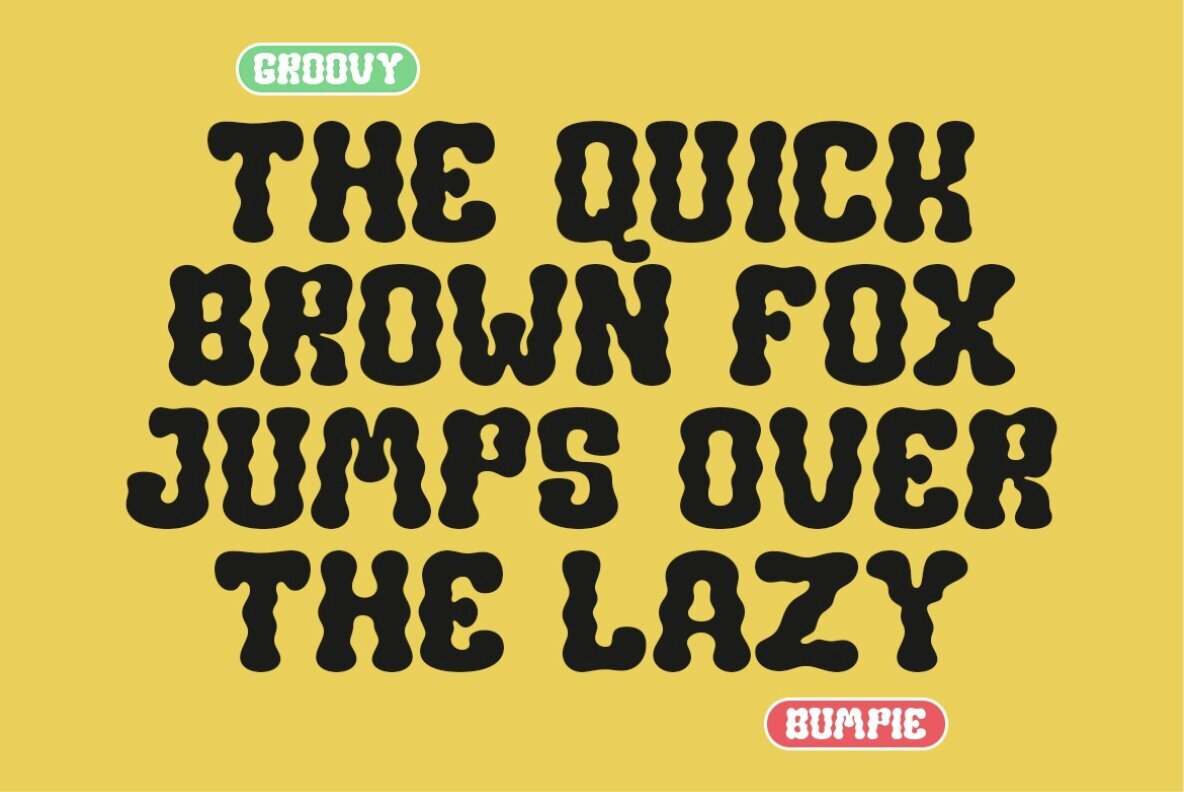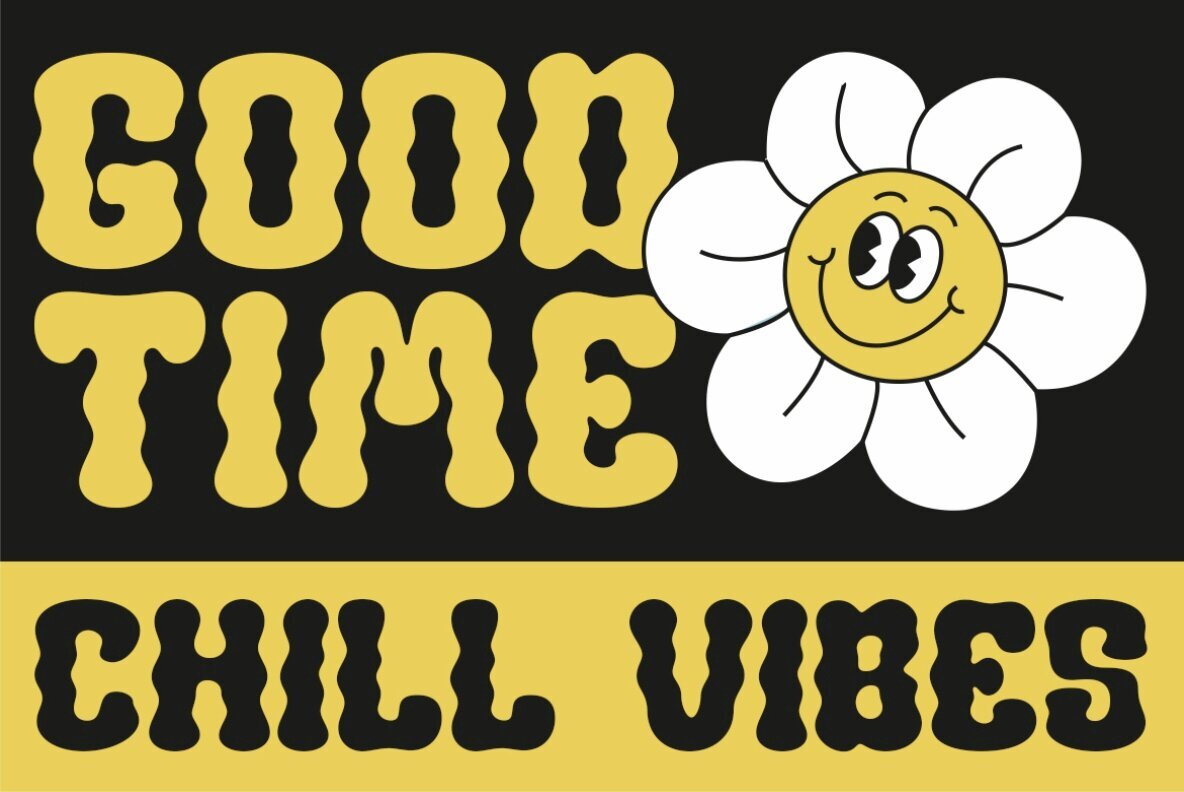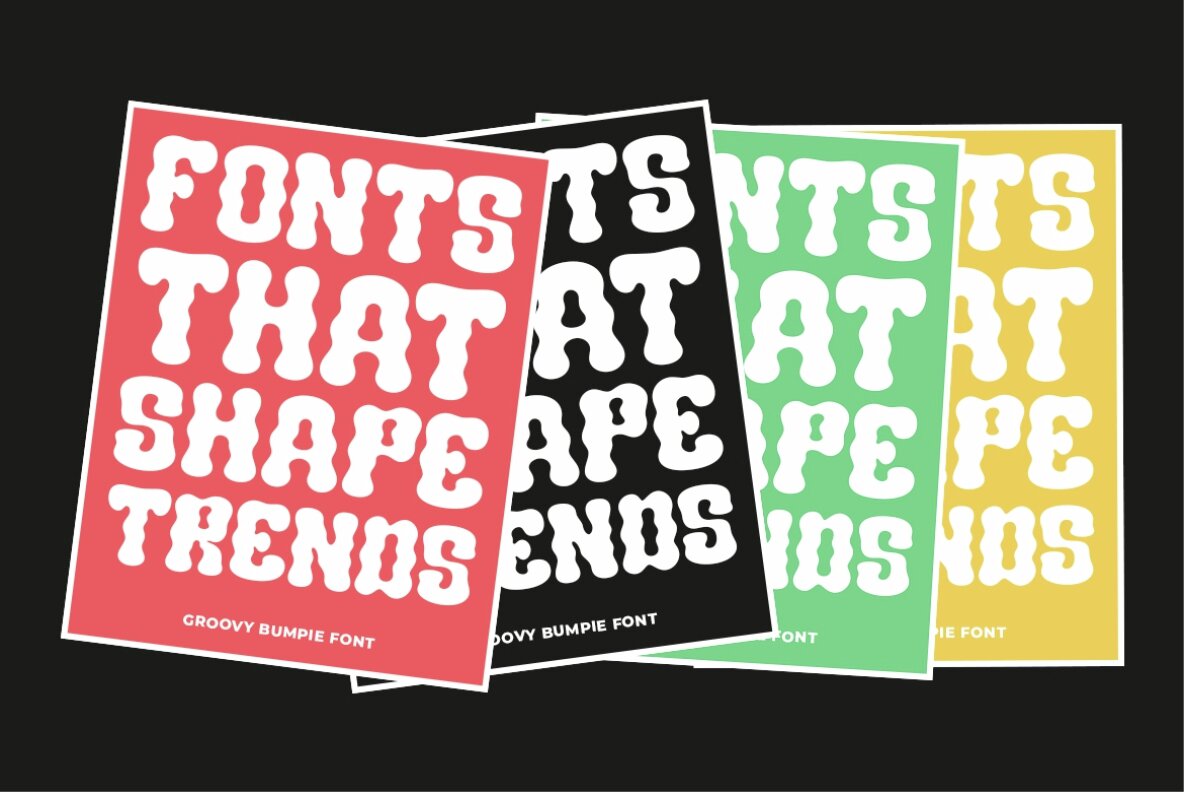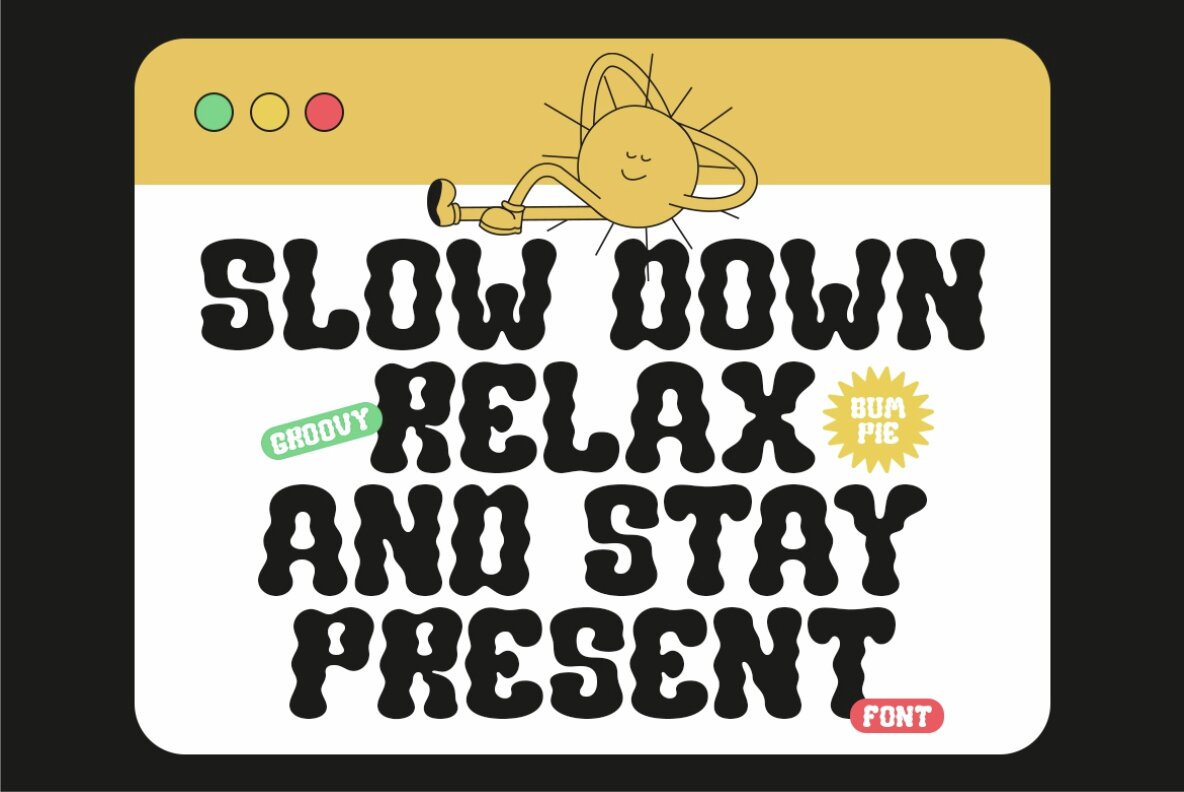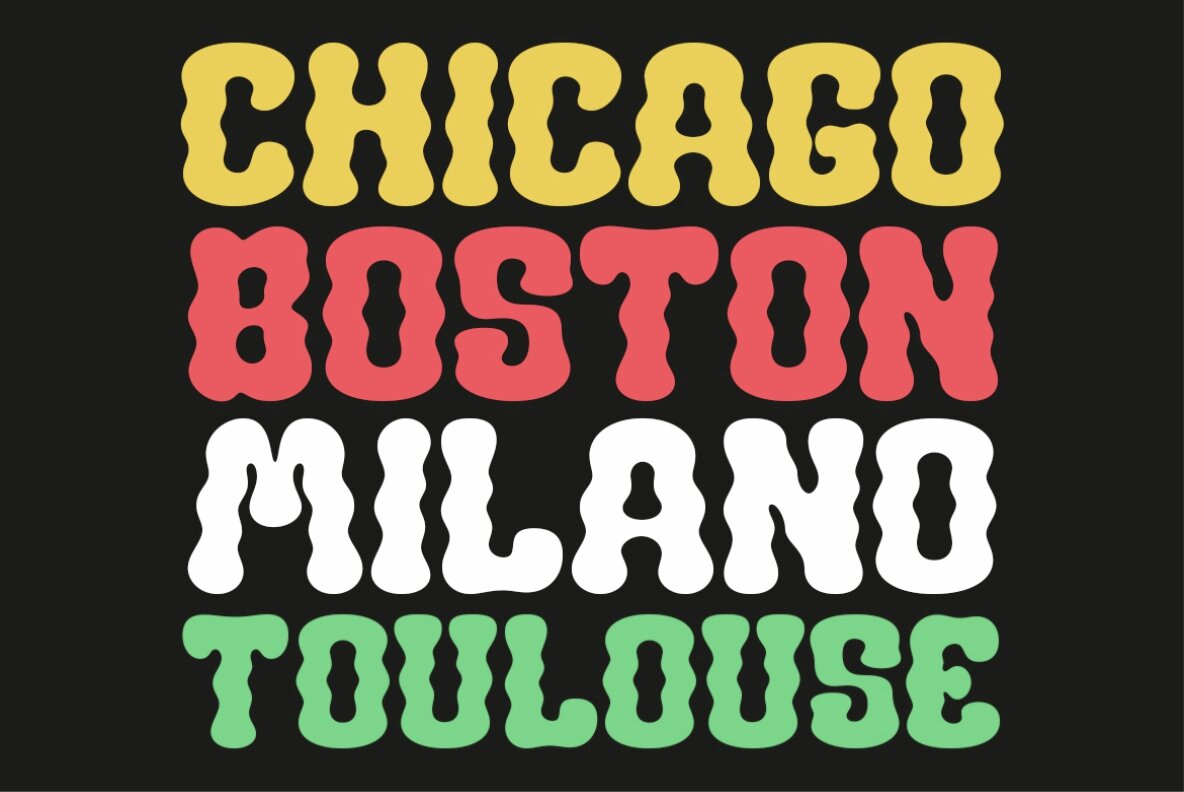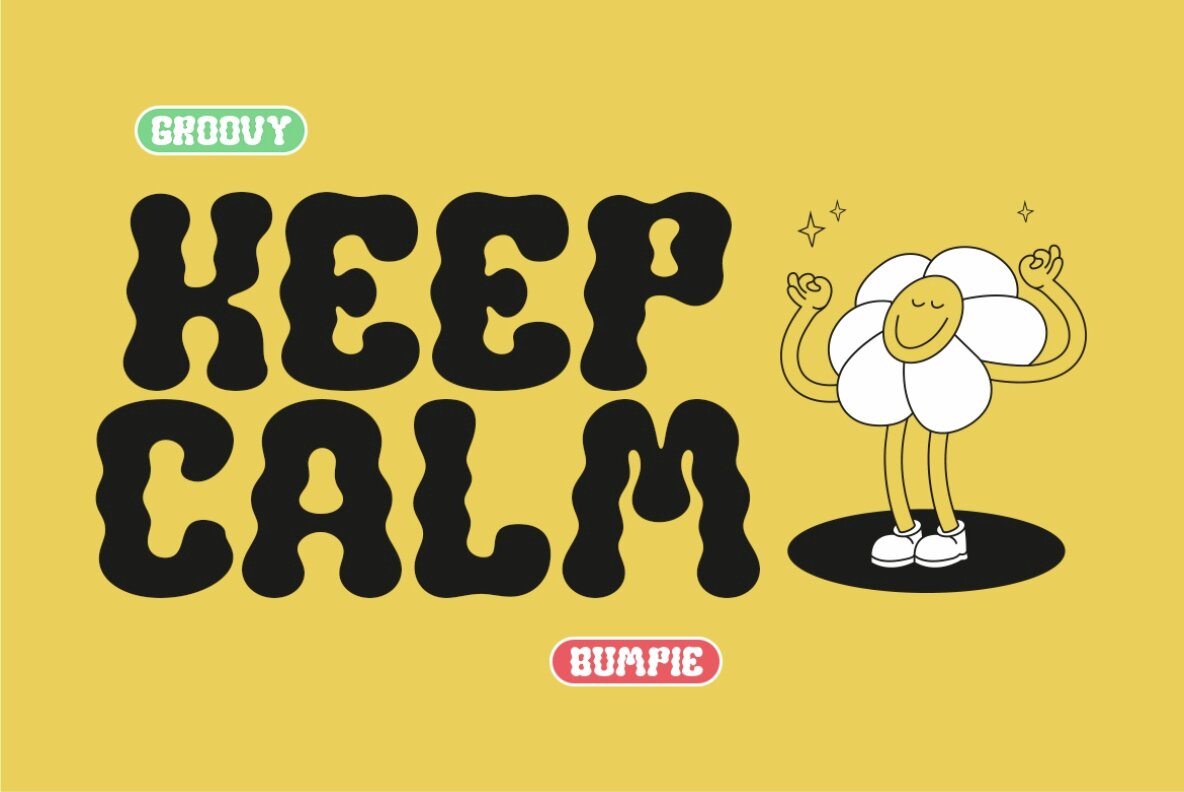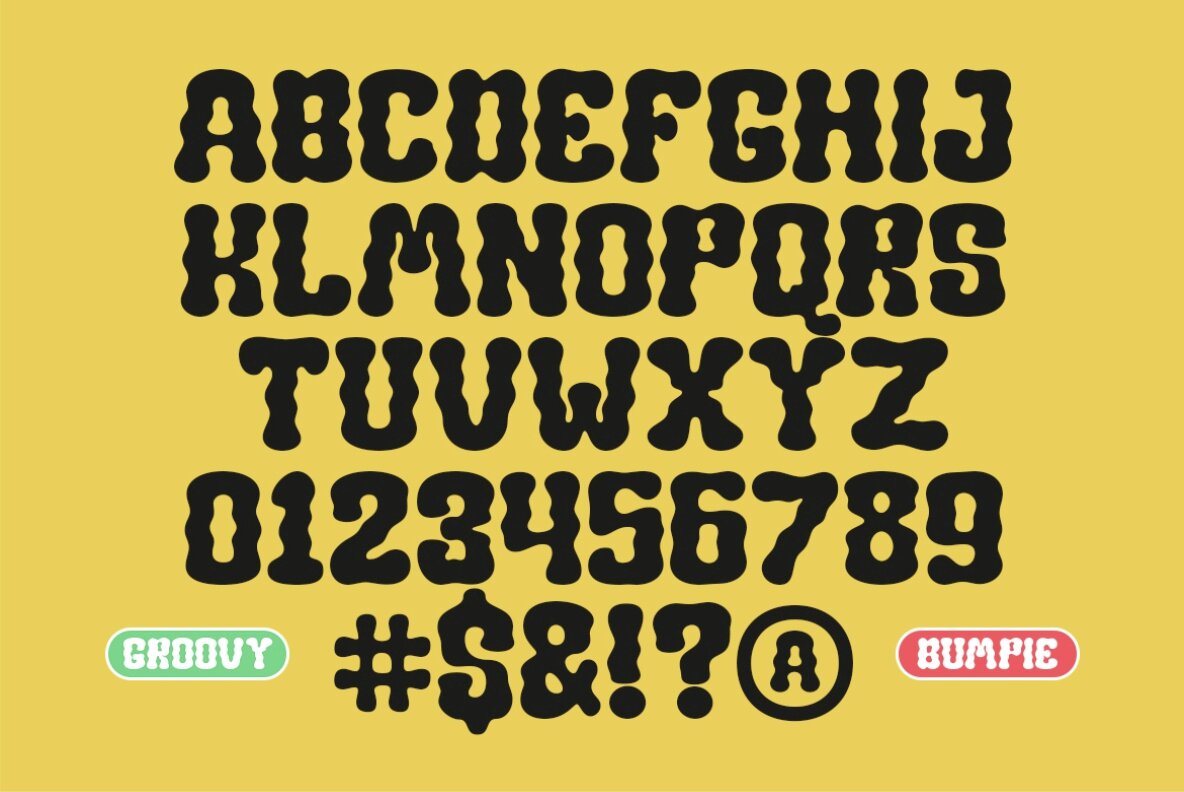
Groovy Bumpie Font
Groovy Bumpie
Groovy Bumpie is a dynamic display font capturing the essence of waves with its fluid and curvy design. Its smooth undulating form brings a sense of movement and rhythm, making it perfect for projects that aim to communicate an energetic or organic vibe. The playful and lively design offers a unique and captivating character to your text, ensuring a visually engaging impact.
This versatile font includes uppercase and lowercase letters, numerals, punctuation, and multilingual support, making it suitable for a wide array of design projects. Groovy Bumpie's distinct style will enhance your creative work with its vibrant and energetic presence.